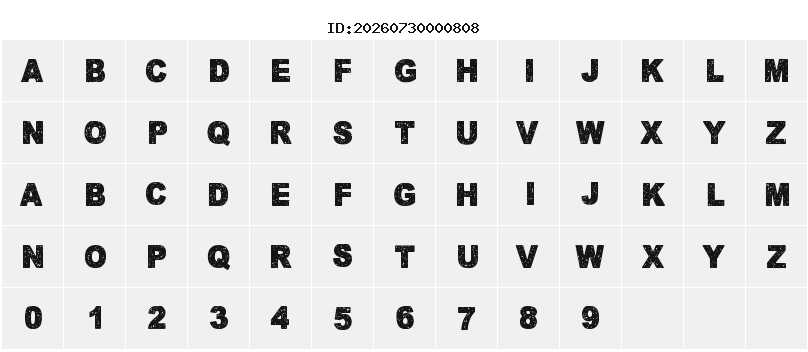
• Font Name: Keskiyon Lumisade
• Font ID: Keskiyon Lumisade:Version 1.00
• Full Font Name: Keskiyon Lumisade
• Version: Version 1.00 September 8, 2014, initial release
• PostScript Name: KeskiyonLumisade
• Designer: junkohanhero
About Keskiyon Lumisade.ttf
Keskiyon Lumisade.ttf is a modern, elegant sans-serif font designed for ultimate readability and visual harmony. Perfect for branding, headlines, web design, and print materials.